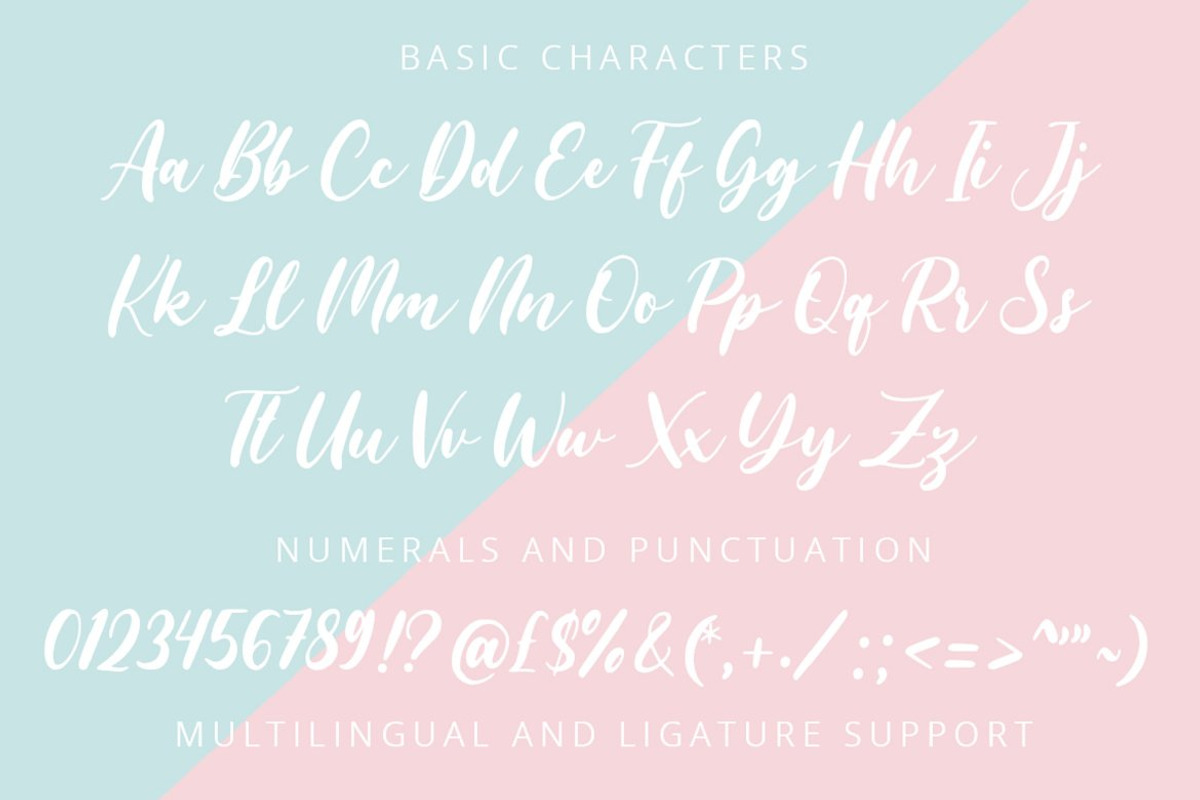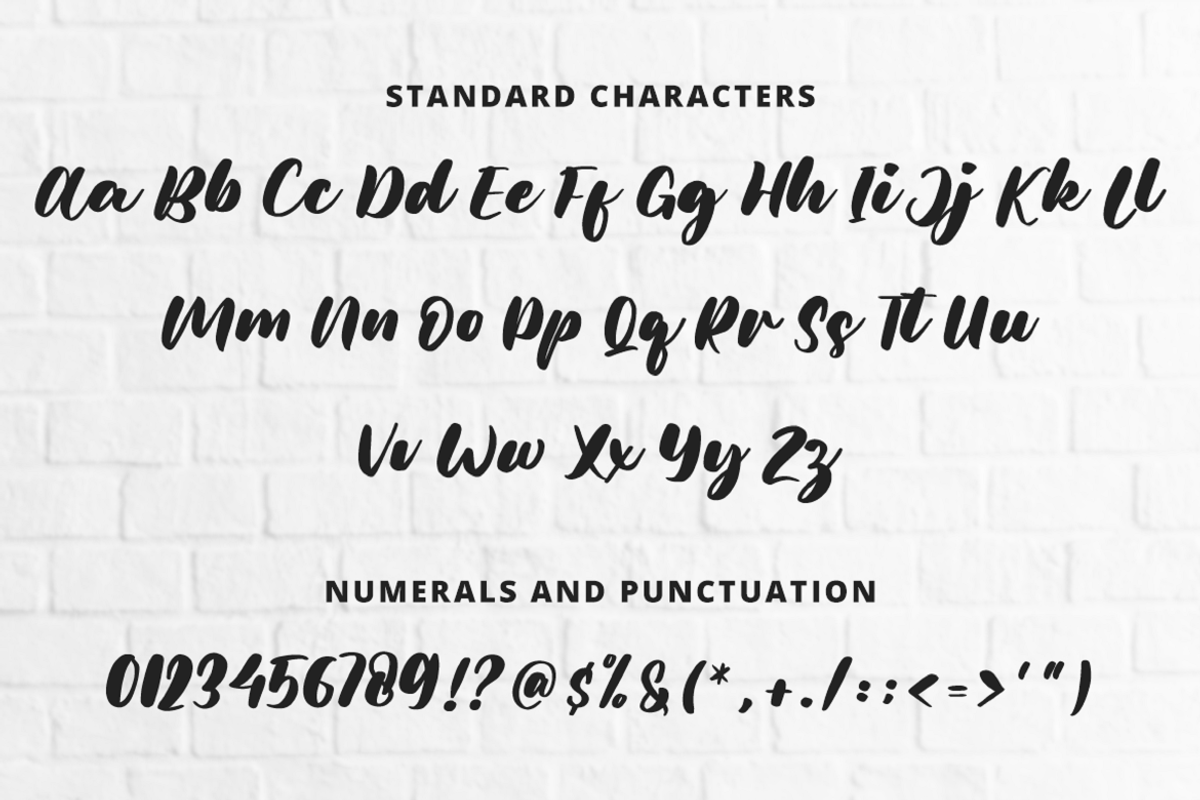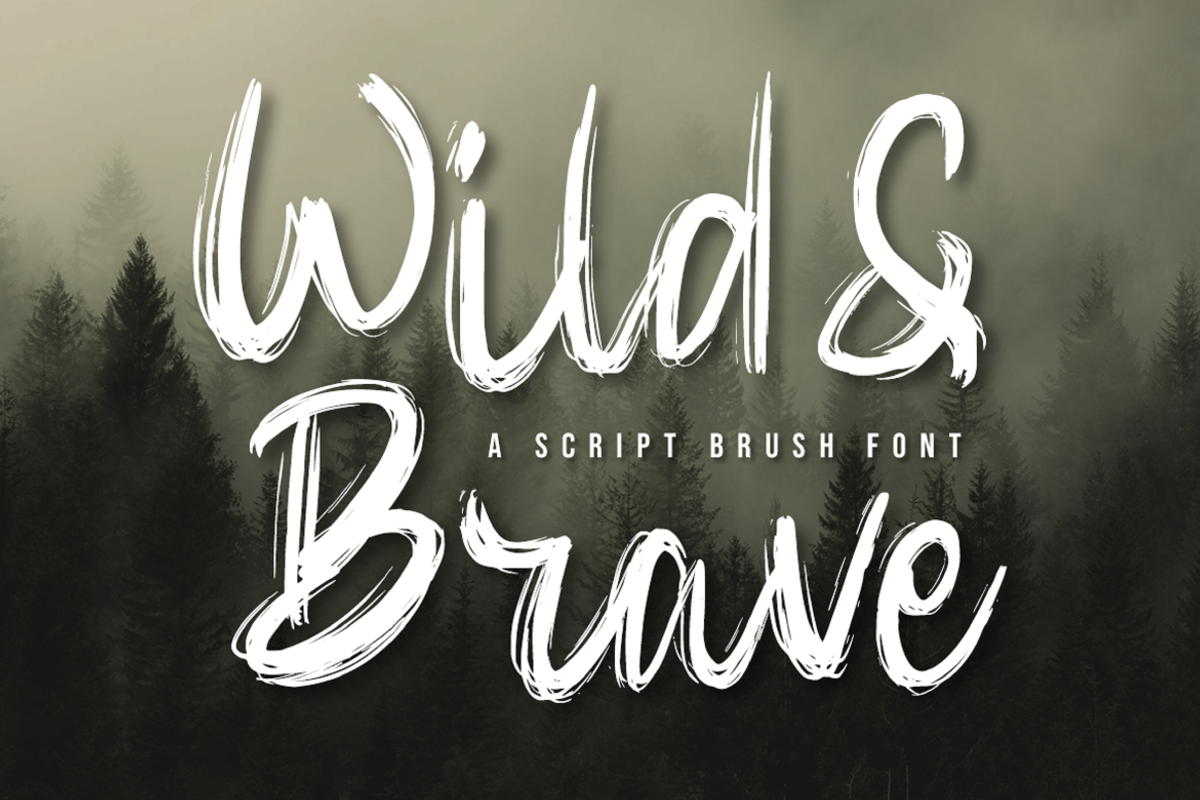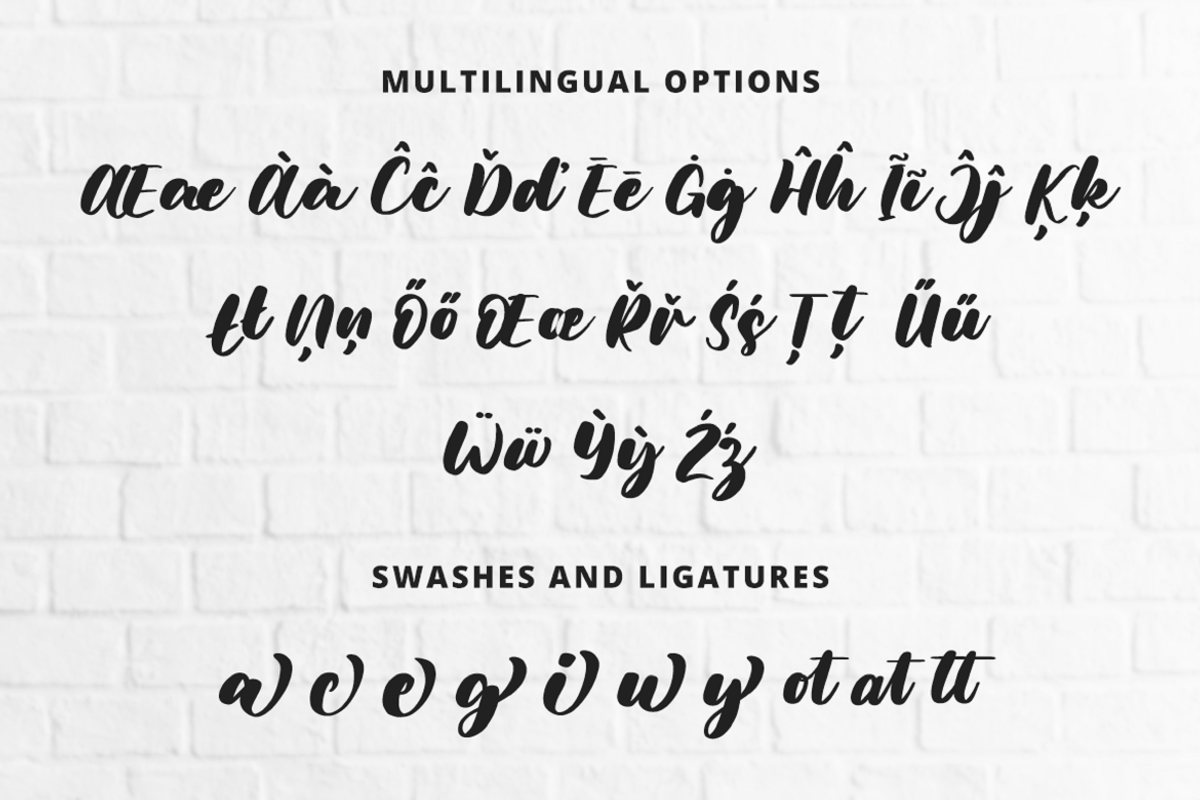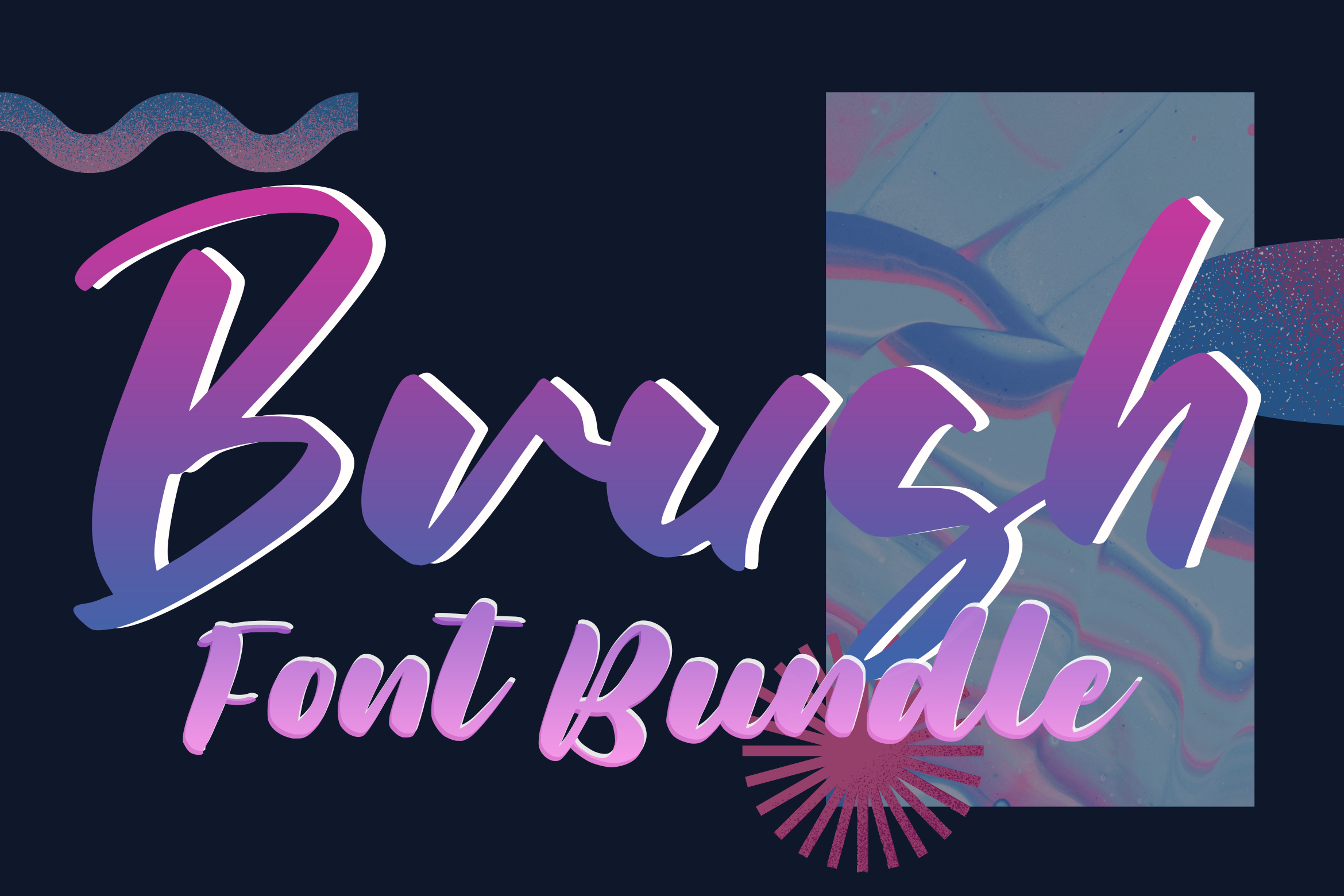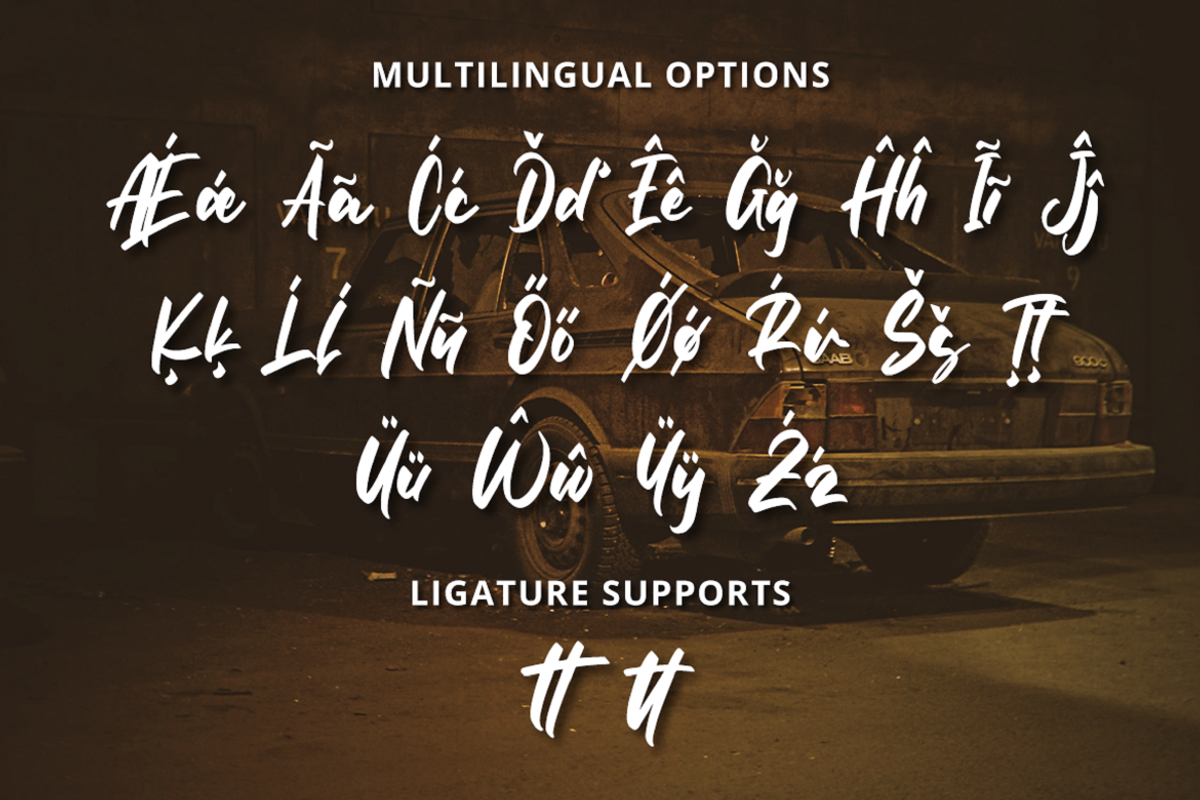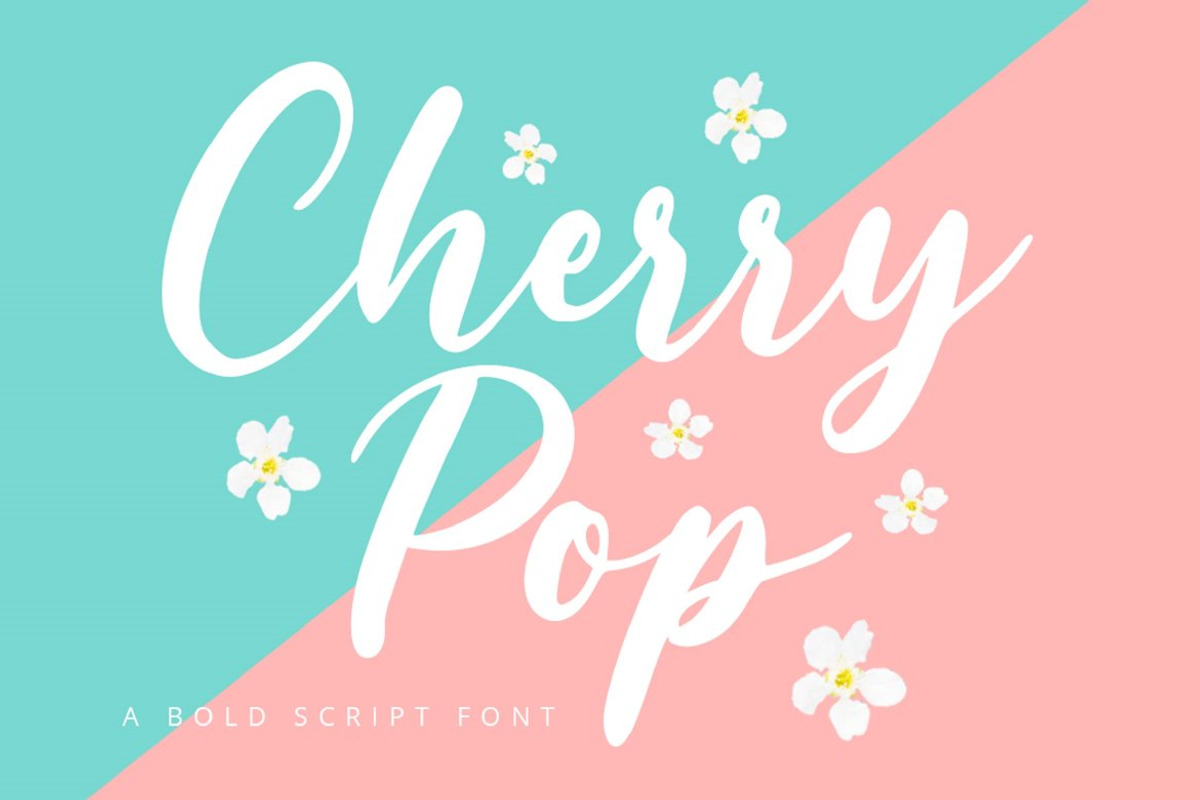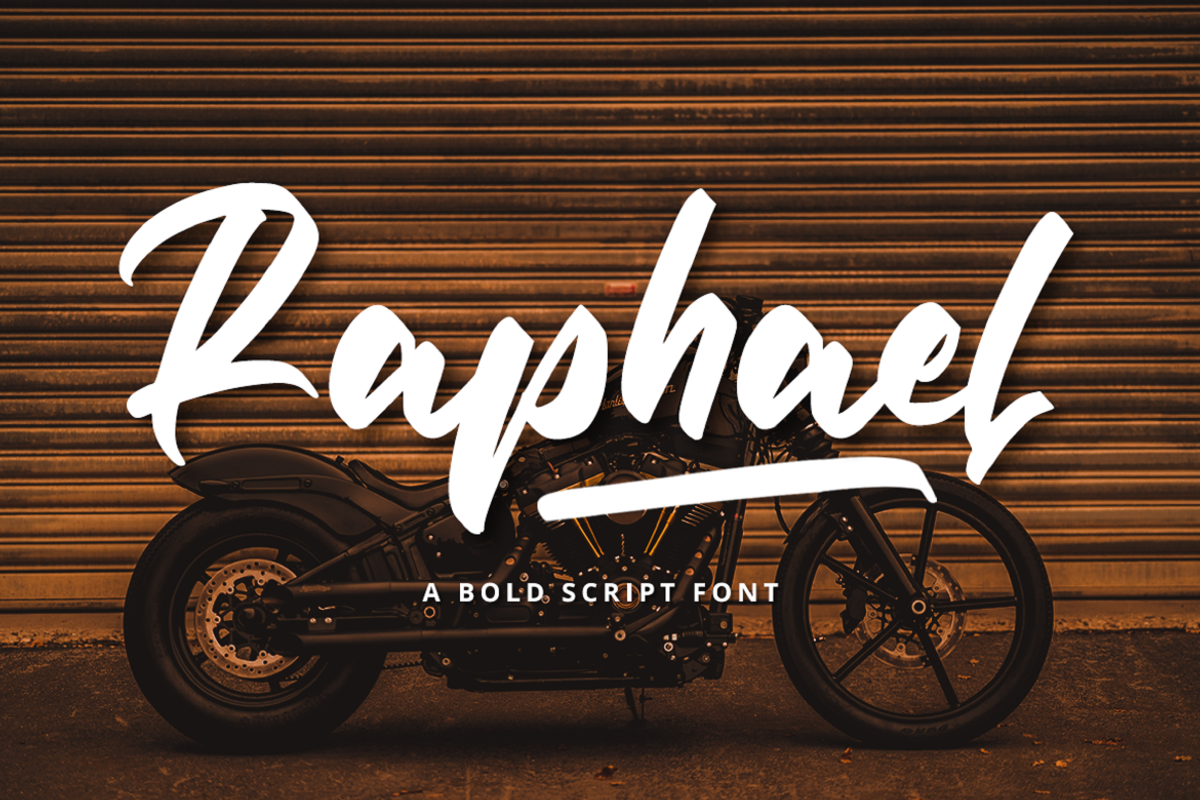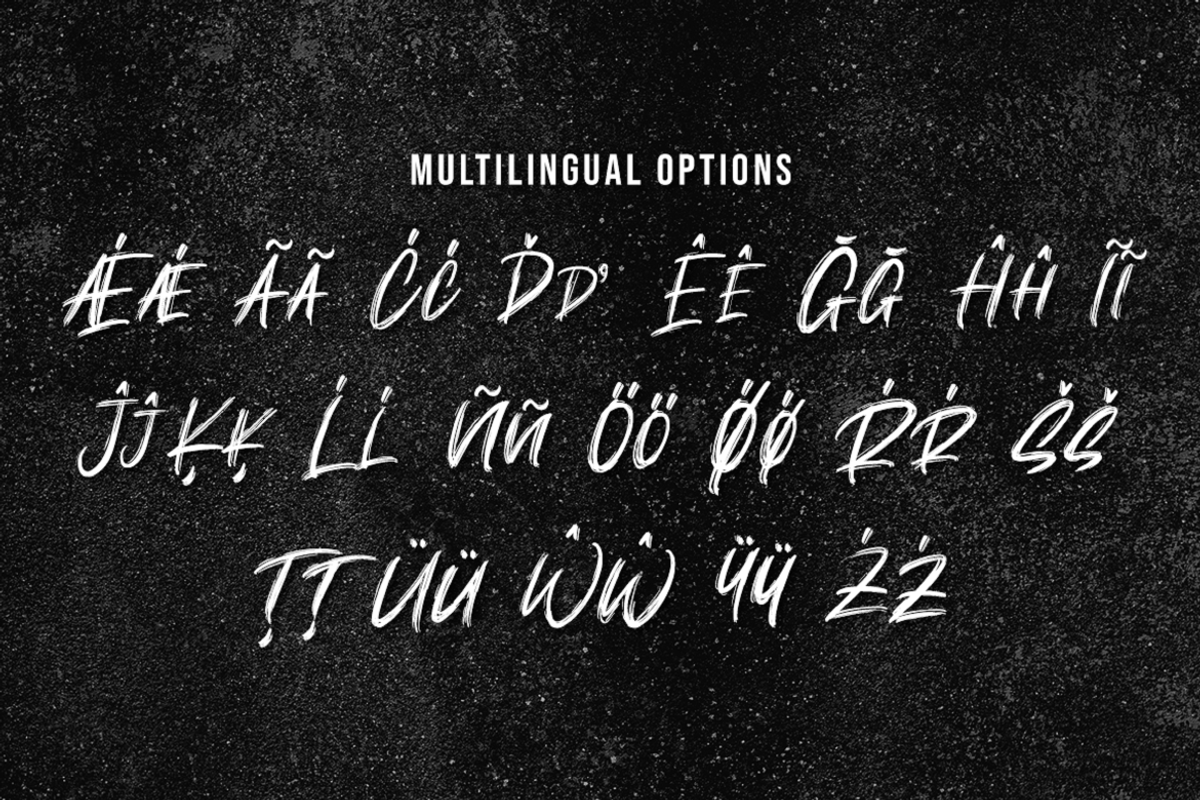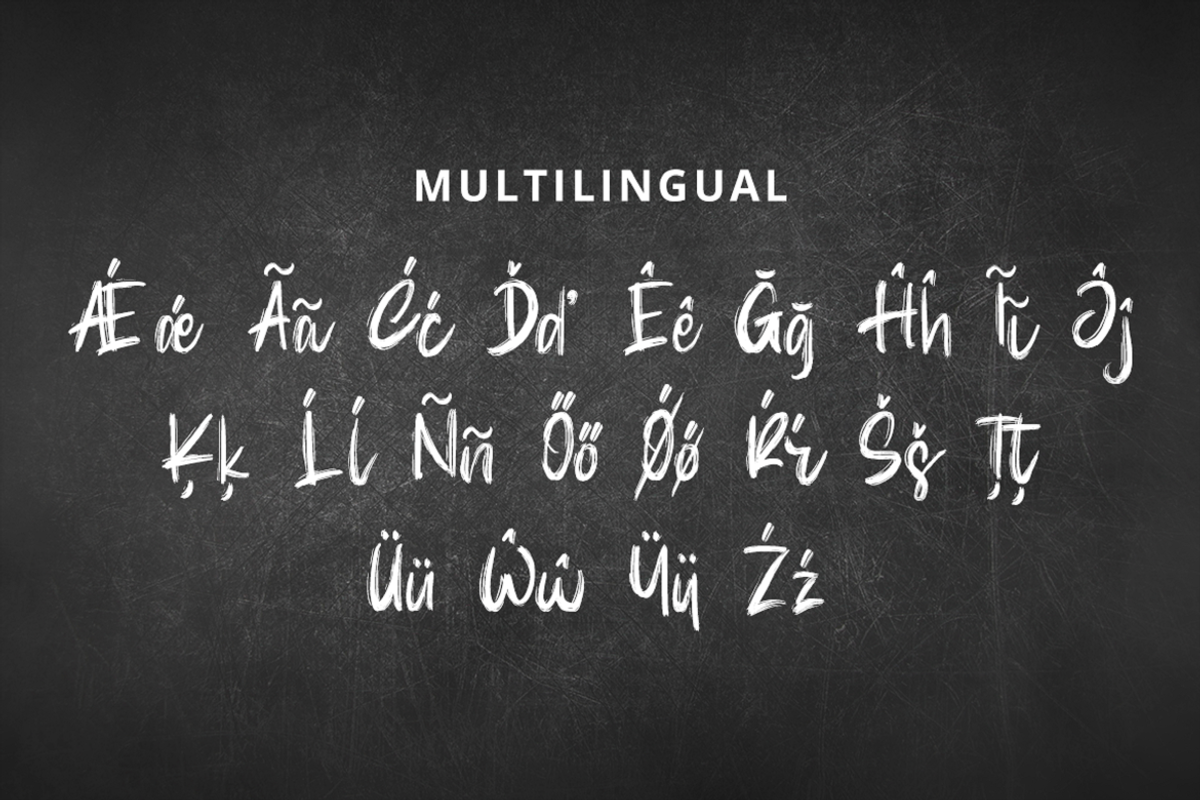
Brush Font Bundle
This awesome font bundle offers TONS of amazing Brush and Bold Font! Whether you are designing logos, posters, invitations, websites, or t-shirts, you are sure to find something to match your design style.
It is an great deal that will leave you with a bag-full of awesome assets to use in your work and projects.
- MOST of the fonts in this bundle offers alternate ligature feature
5 Specially curated fonts from our collection